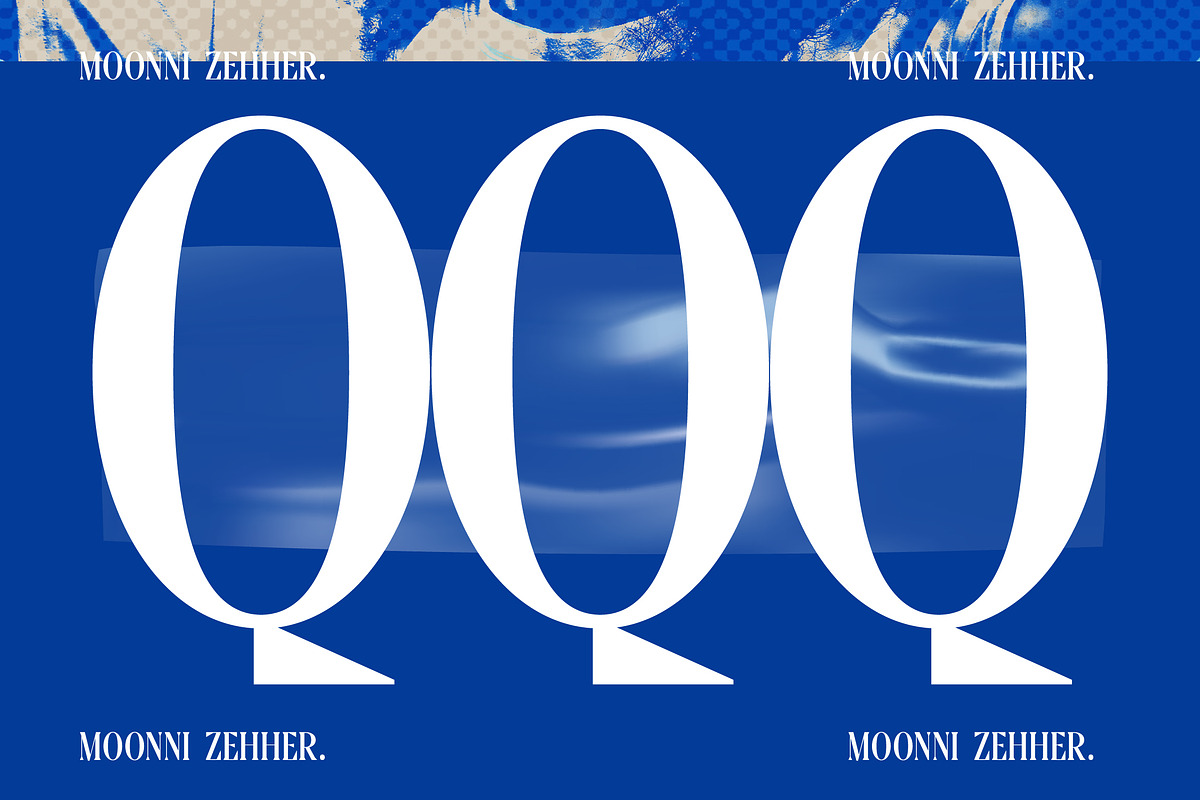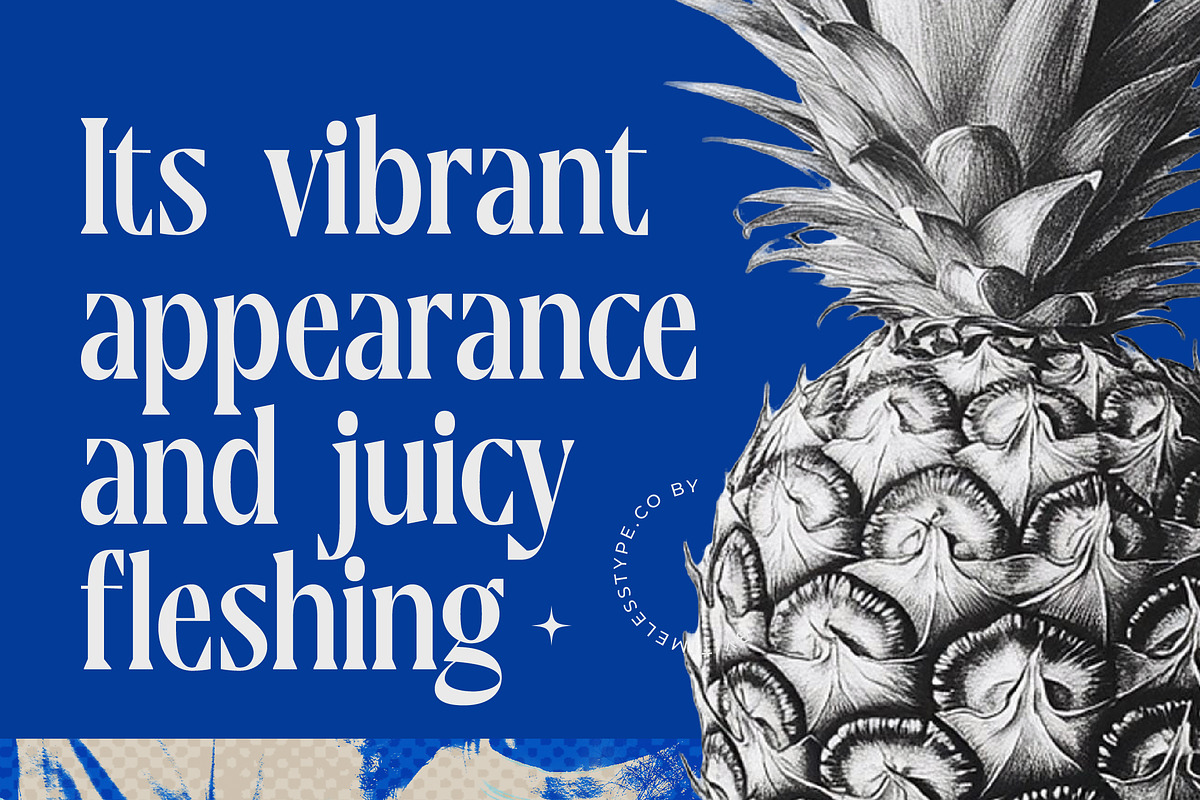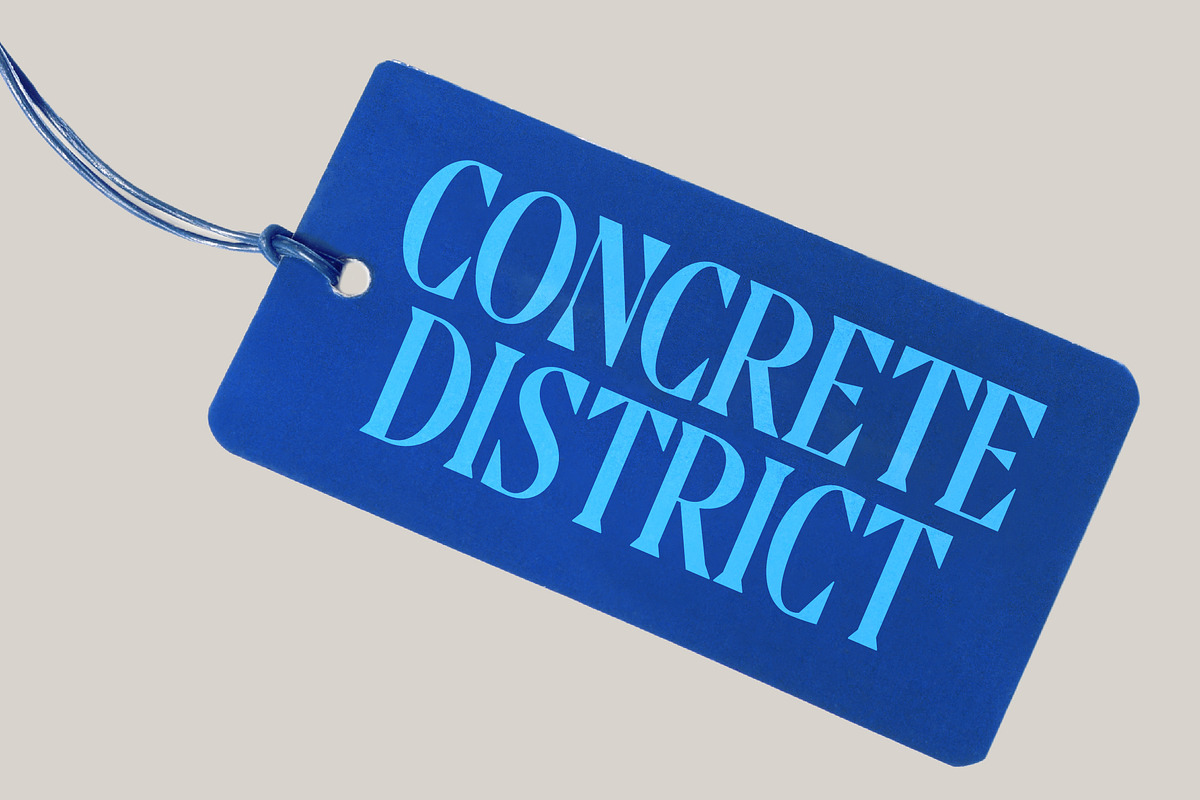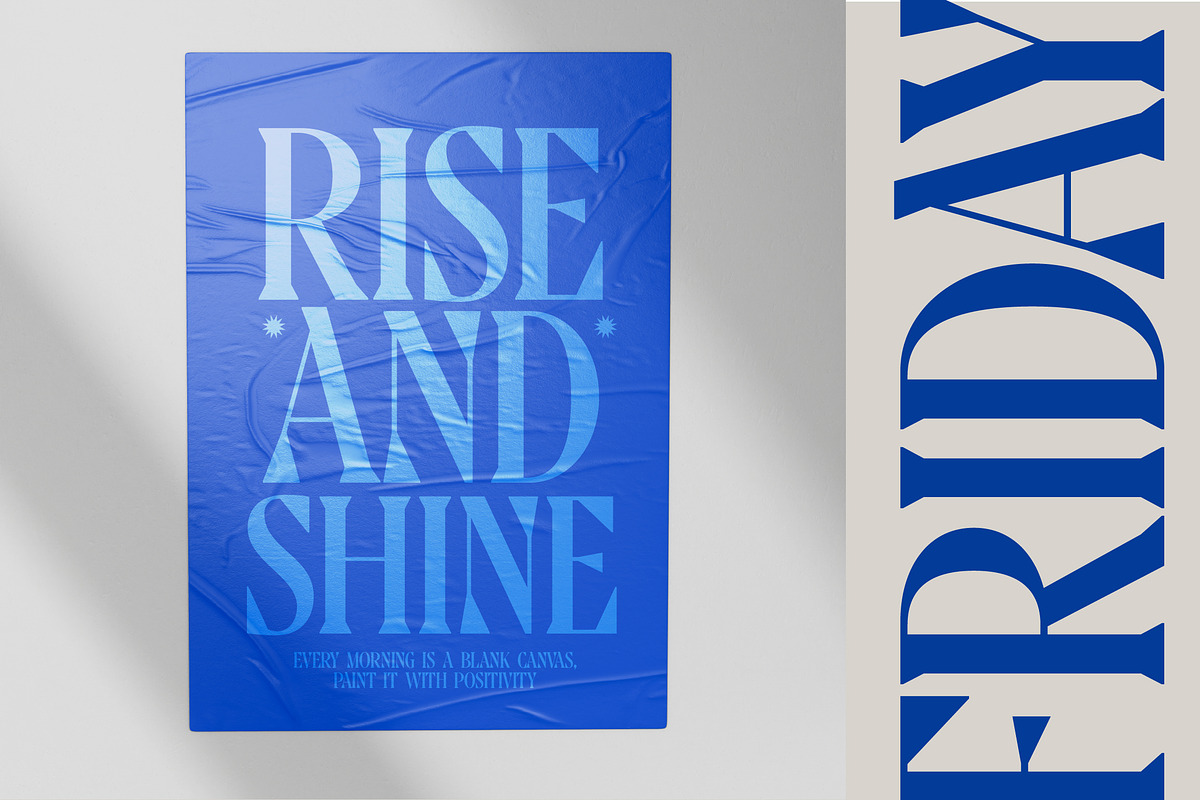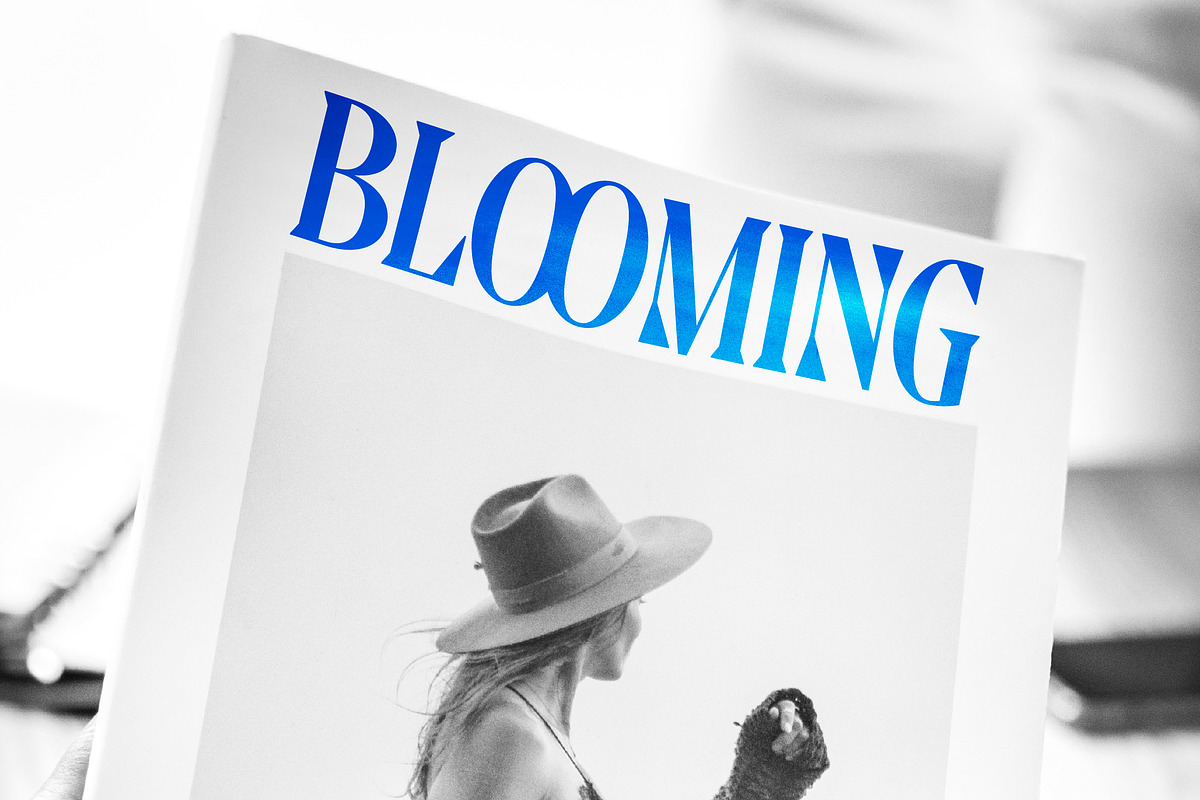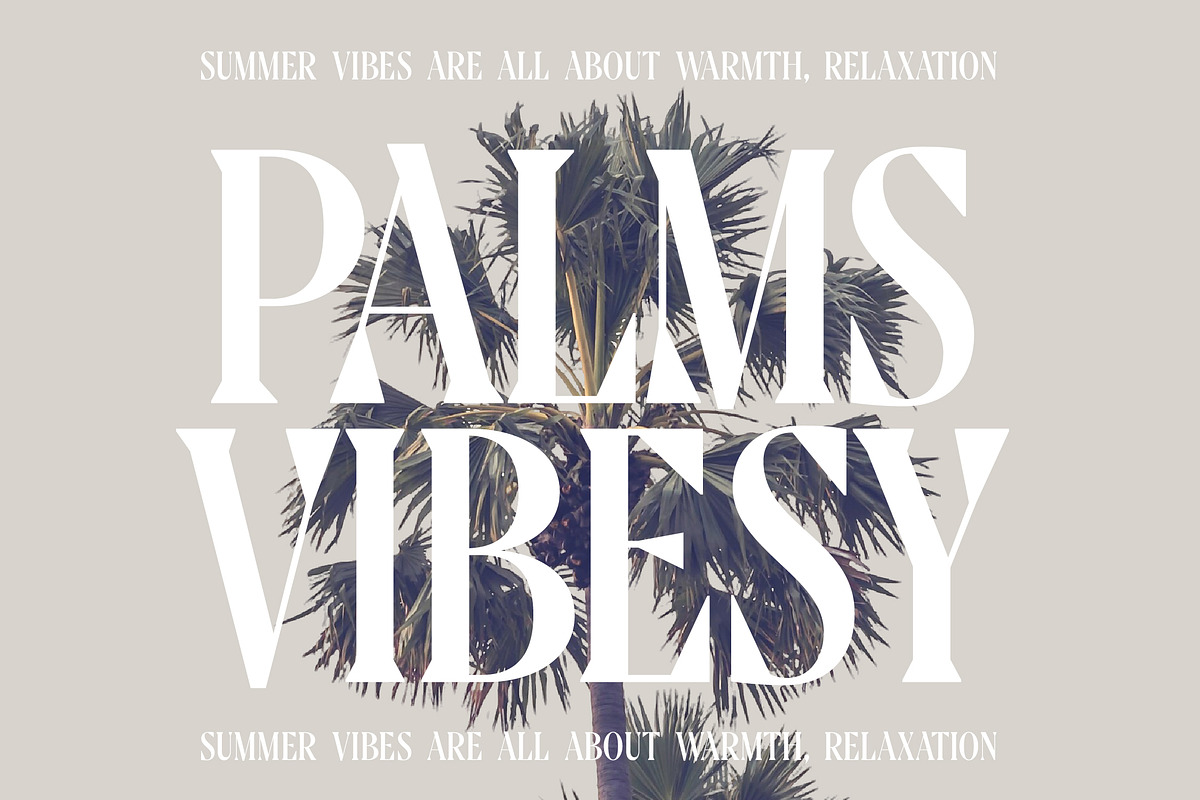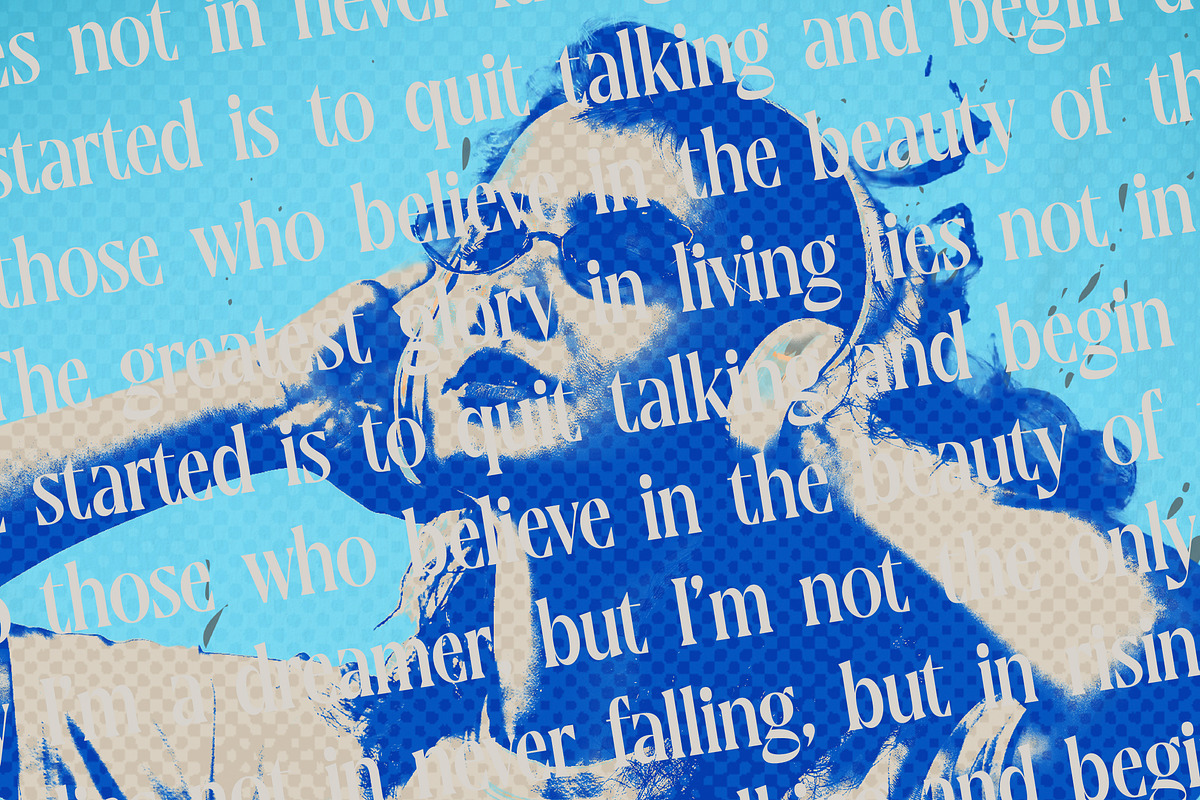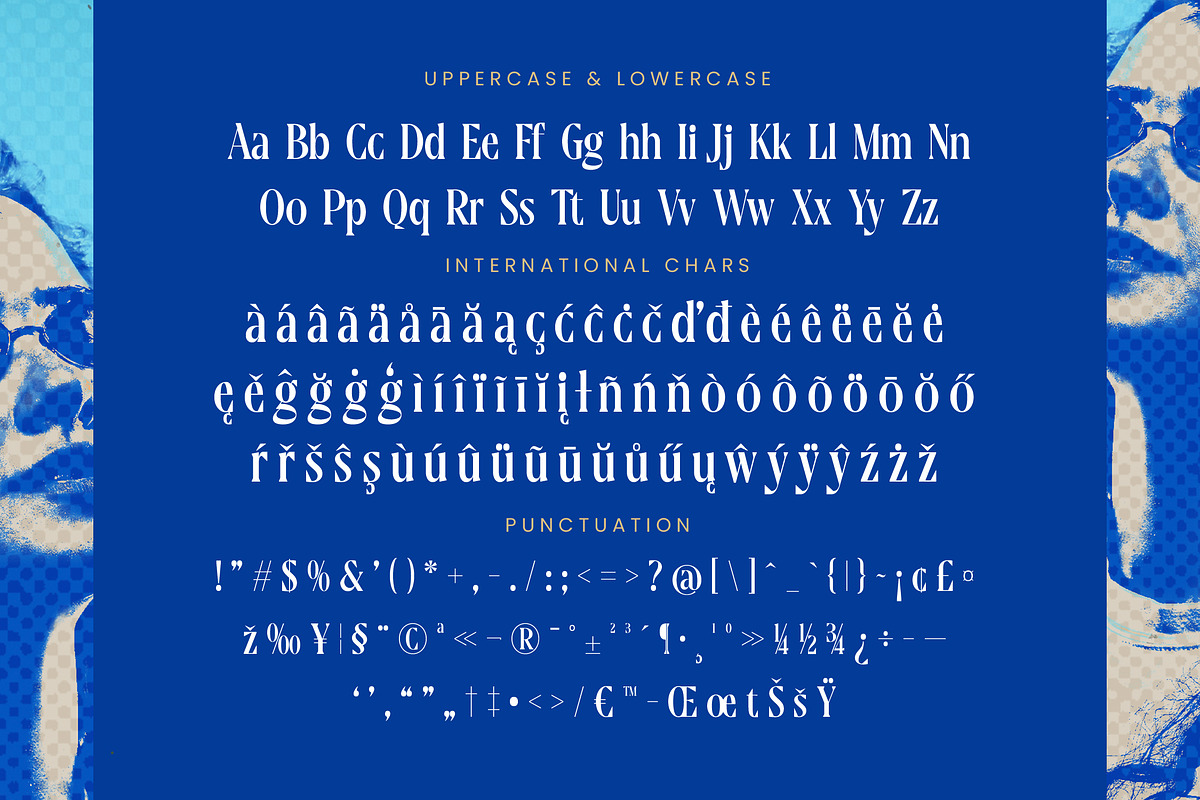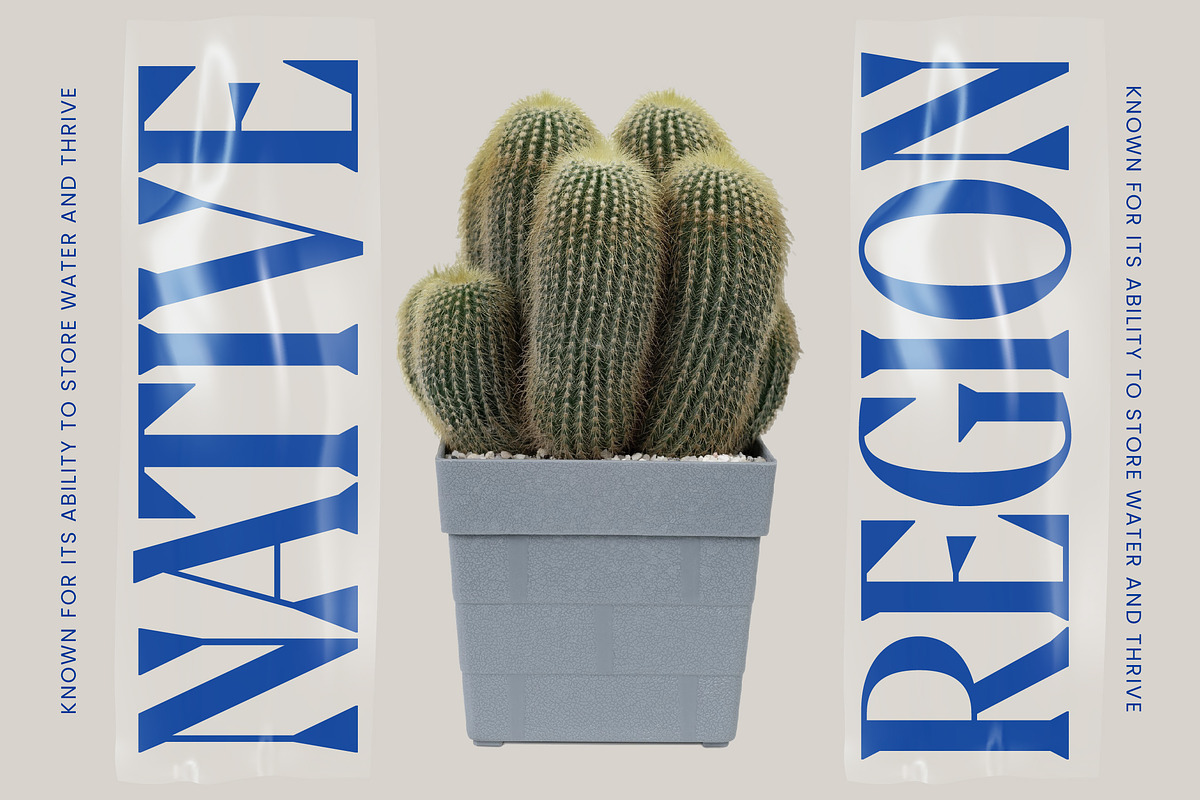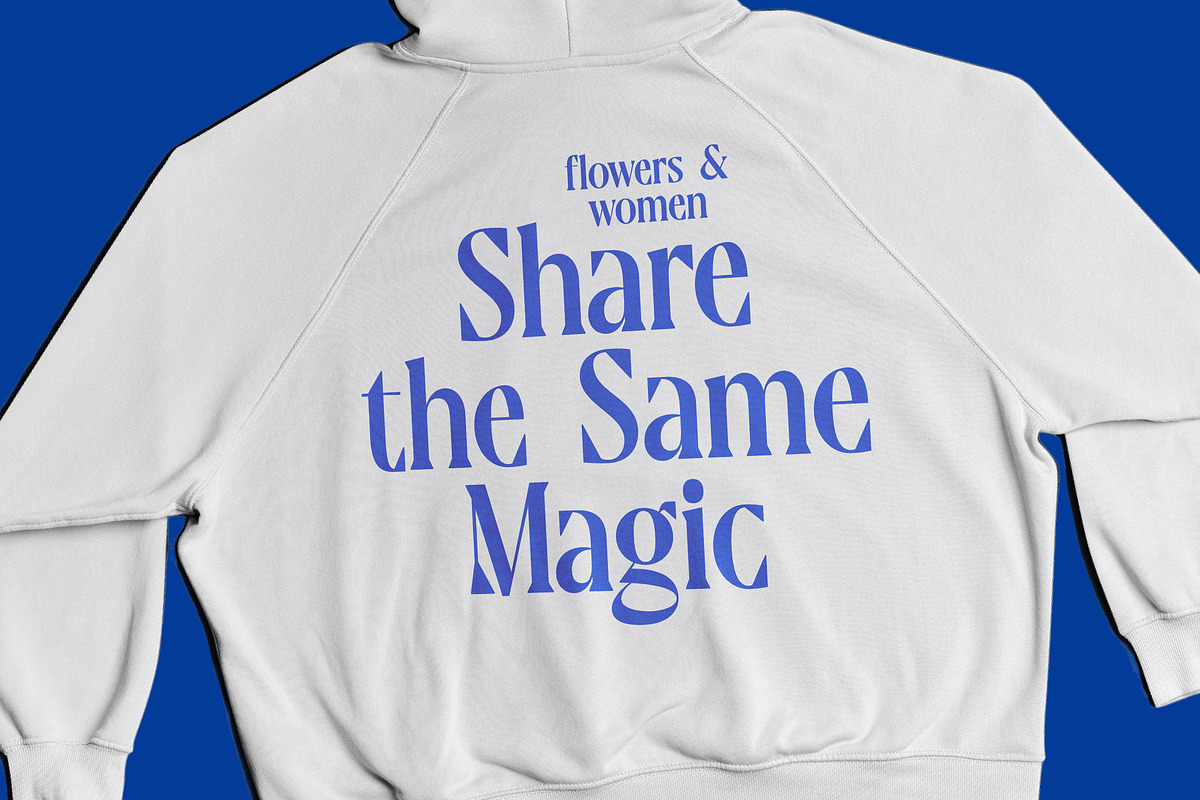
Moonni Zehher Bold Tall Serif
Moonni Zehher is the ultimate statement piece for designers seeking a balance between avant-garde sophistication and timeless elegance. This bold tall serif commands attention with its striking vertical presence and refined details.
Inspired by the high-octane world of luxury fashion editorials and the chic atmosphere of European design studios, the font captures a moody aesthetic. It bridges the gap between futuristic silhouettes and the deep roots of classical typography to create a truly unique visual signature.
This modern serif display is defined by its dramatic thick-and-thin transitions, creating a sense of luxury typography that is impossible to ignore. Every glyph is crafted for maximum branding impact, making it a quintessential high-contrast serif for any editorial font collection.
Aligning perfectly with the current modern serif trend, this typeface answers the call for character-driven typography that breaks away from generic styles. It is a standout choice among editorial display fonts, offering a unique visual rhythm that fits the contemporary "neo-vintage" movement.
Ideally suited for high-end logo design and upscale branding projects, it also excels in the realm of premium packaging and fashion layouts. Its elegant curves and sharp edges make it a dream for editorial spreads and luxury wedding stationery that requires a touch of drama.
The package is fully loaded with 34 unique alternates and 10 bespoke ligatures to ensure your designs remain one-of-a-kind. It also includes comprehensive support for international characters and multilingual glyphs, ensuring global accessibility for any creative endeavor.